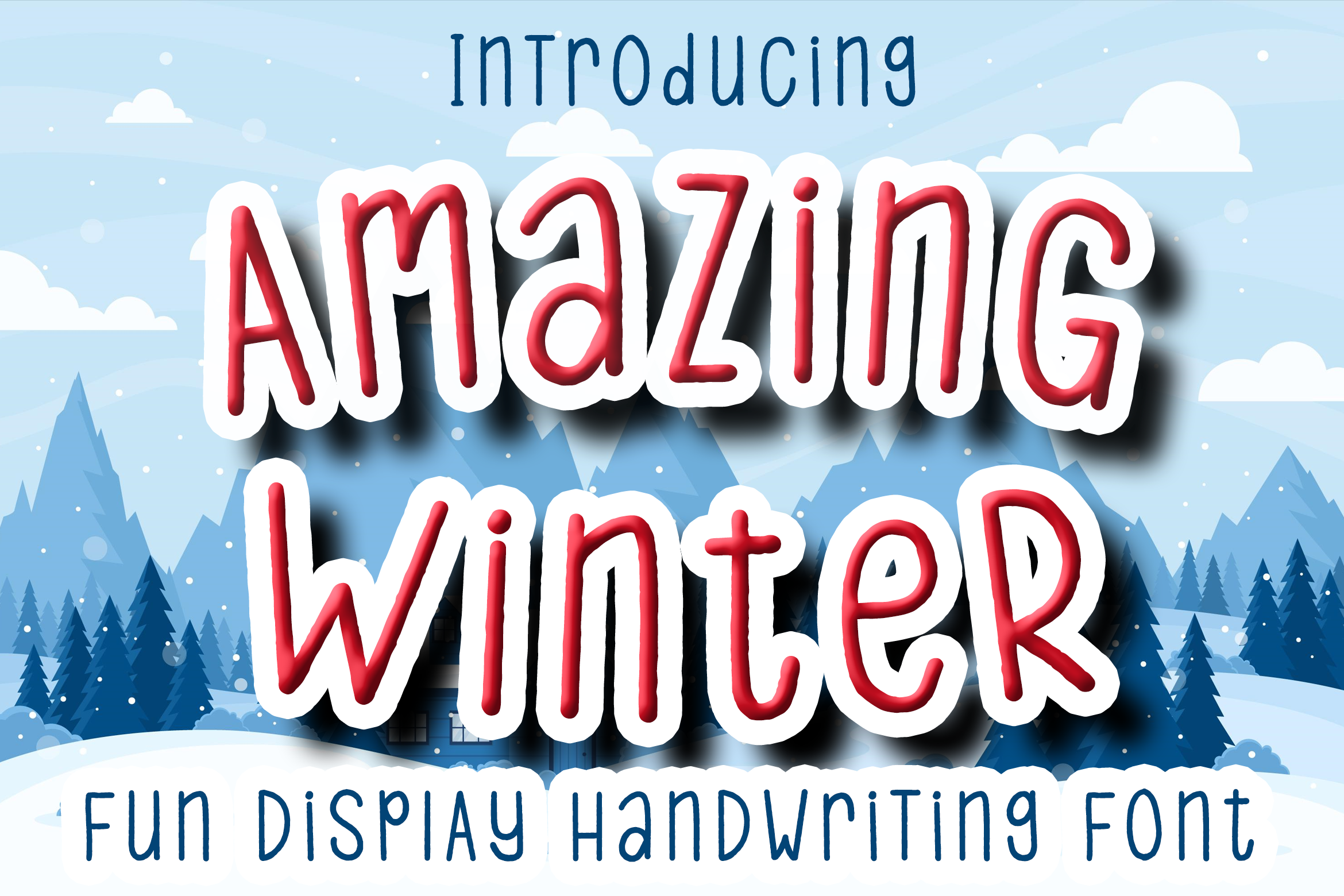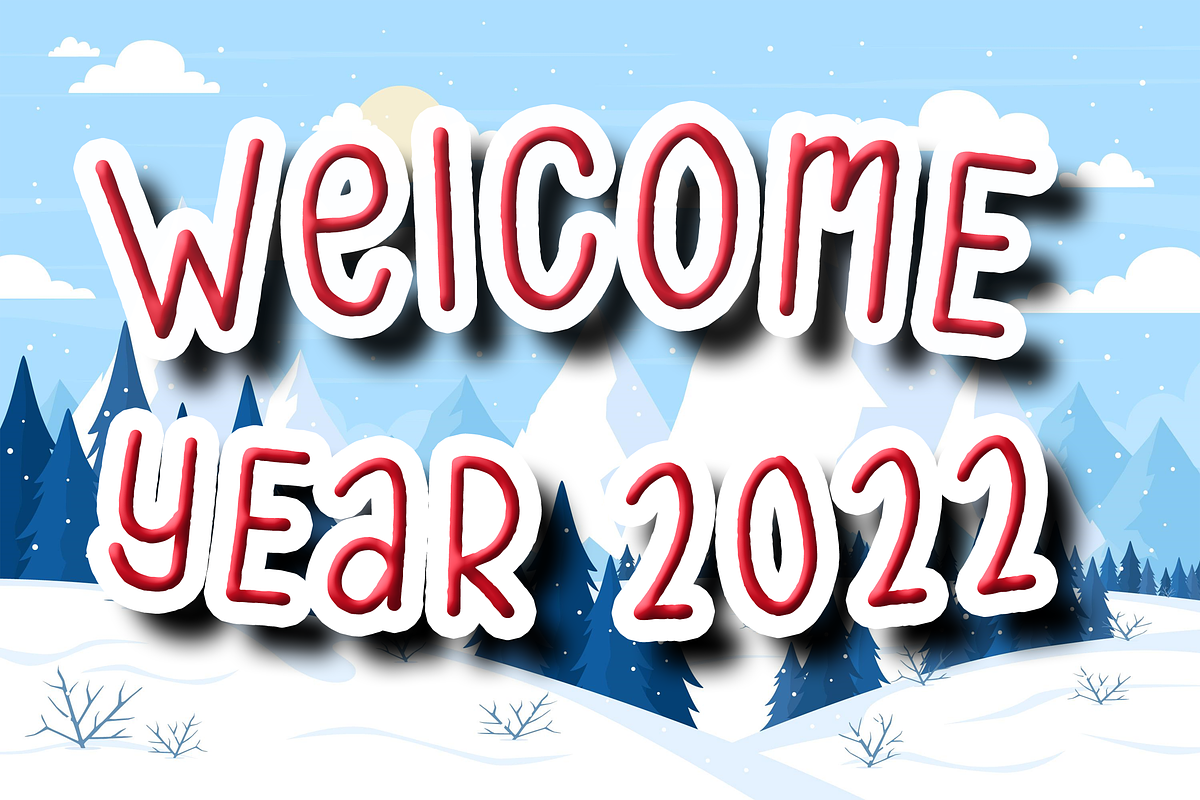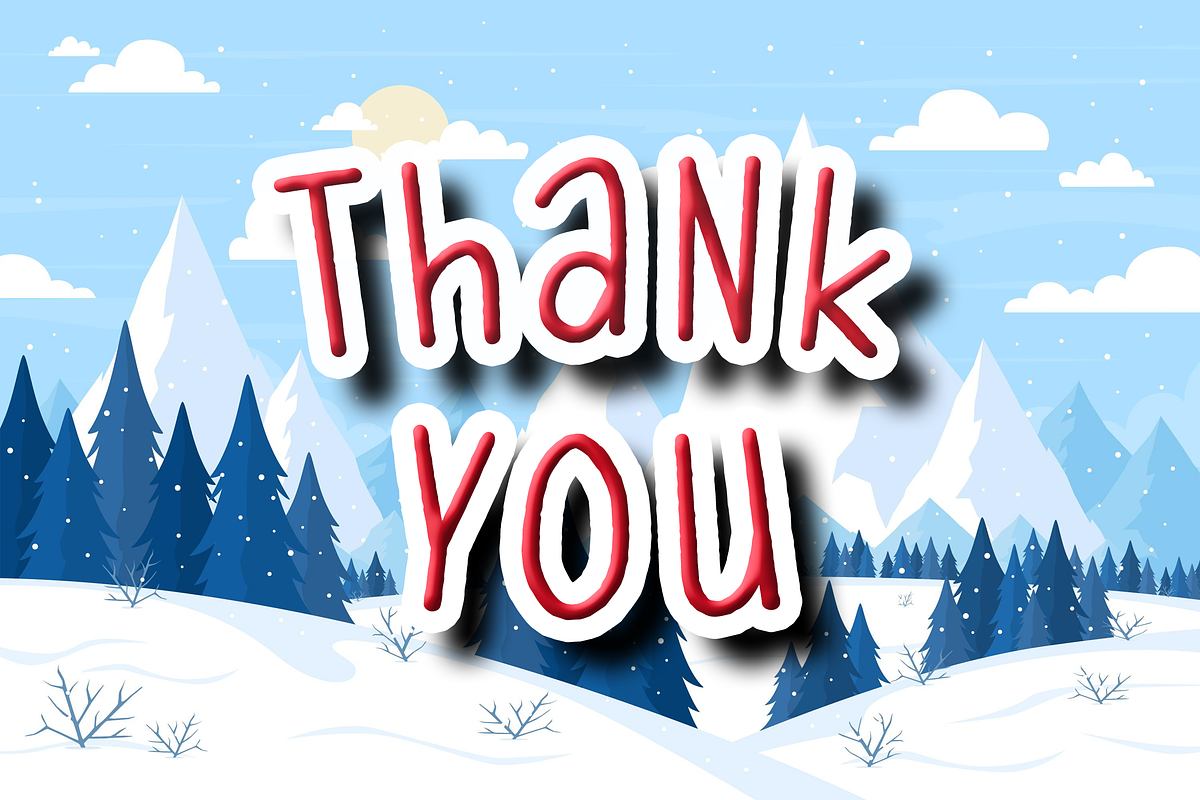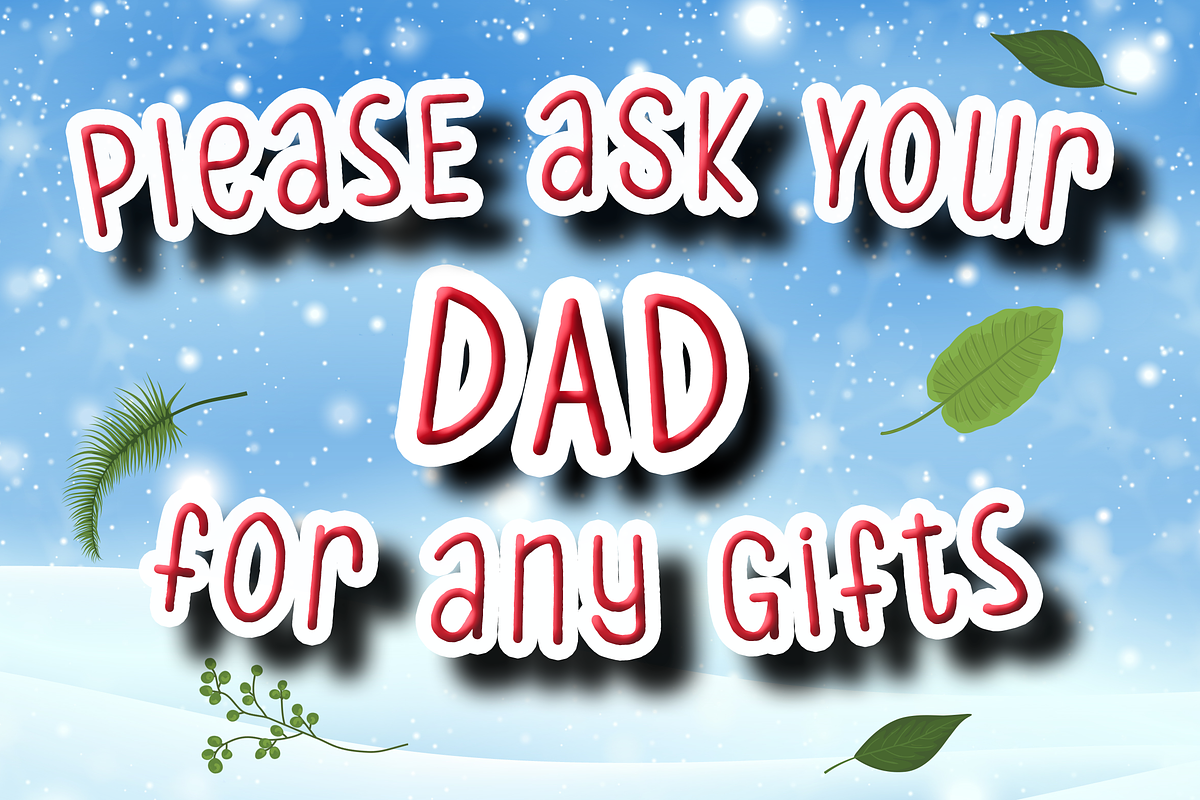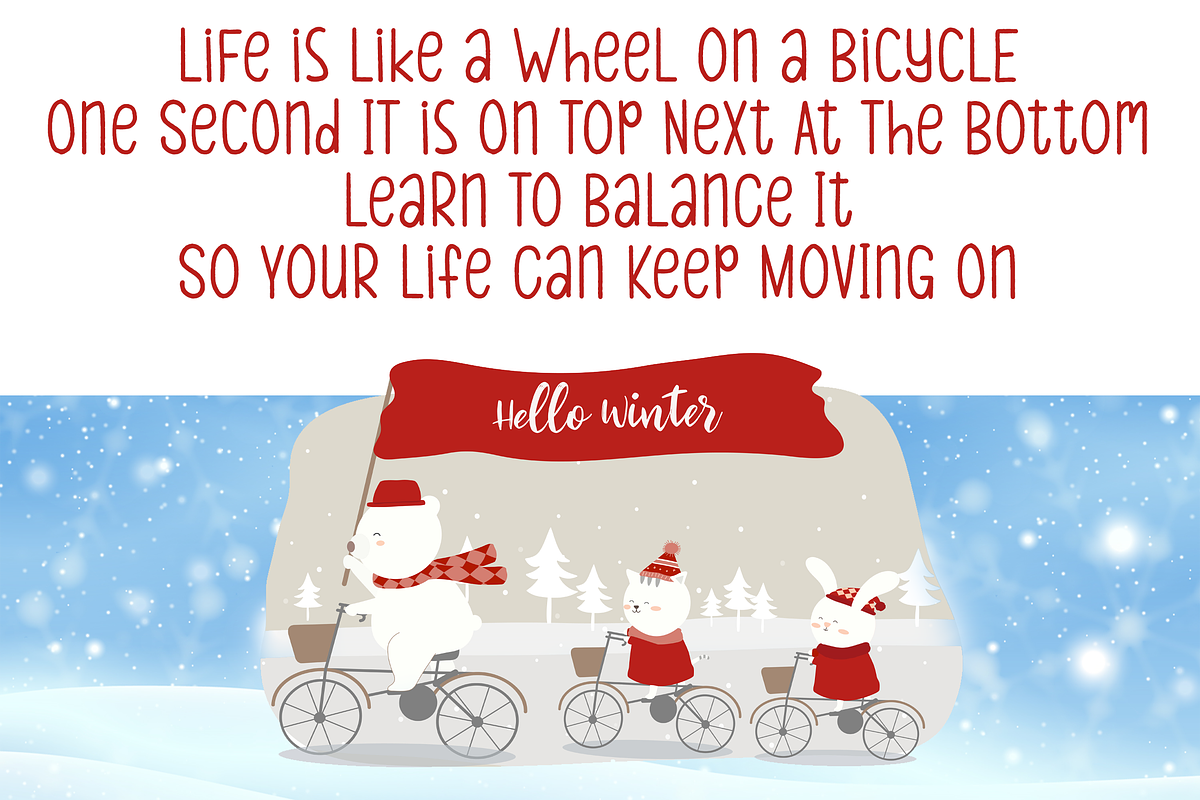
Amazing Winter | Cute Display Font
Amazing Winter is a cute and quirky handwriting display font. It will add an incredibly joyful touch to your designs. Add this beautiful display font to each of your creative ideas and notice how it makes them stand out!